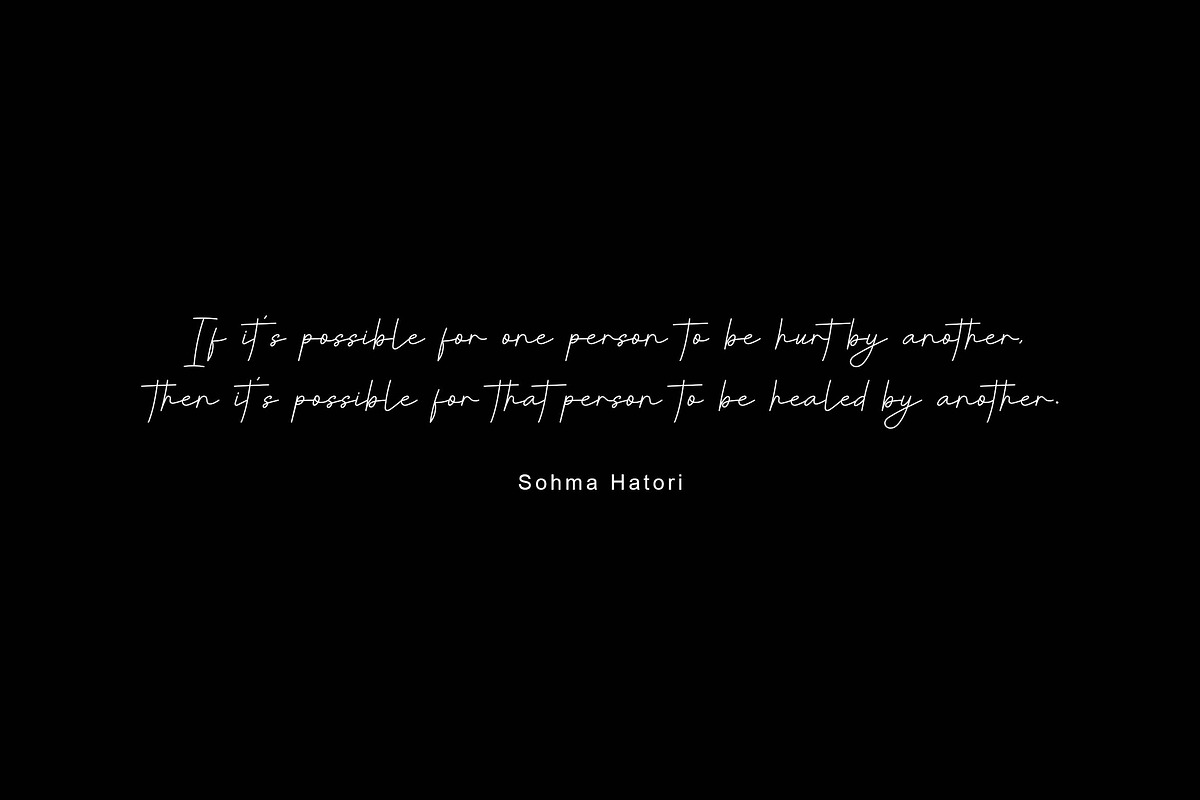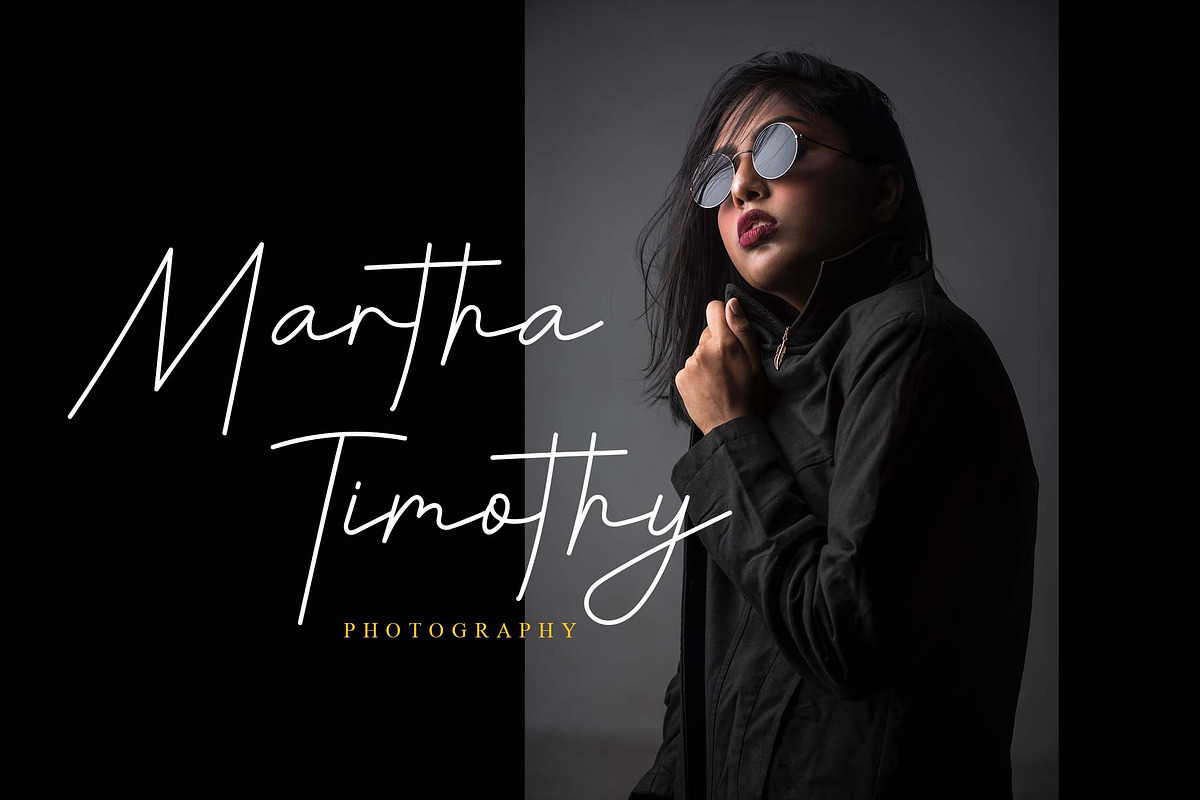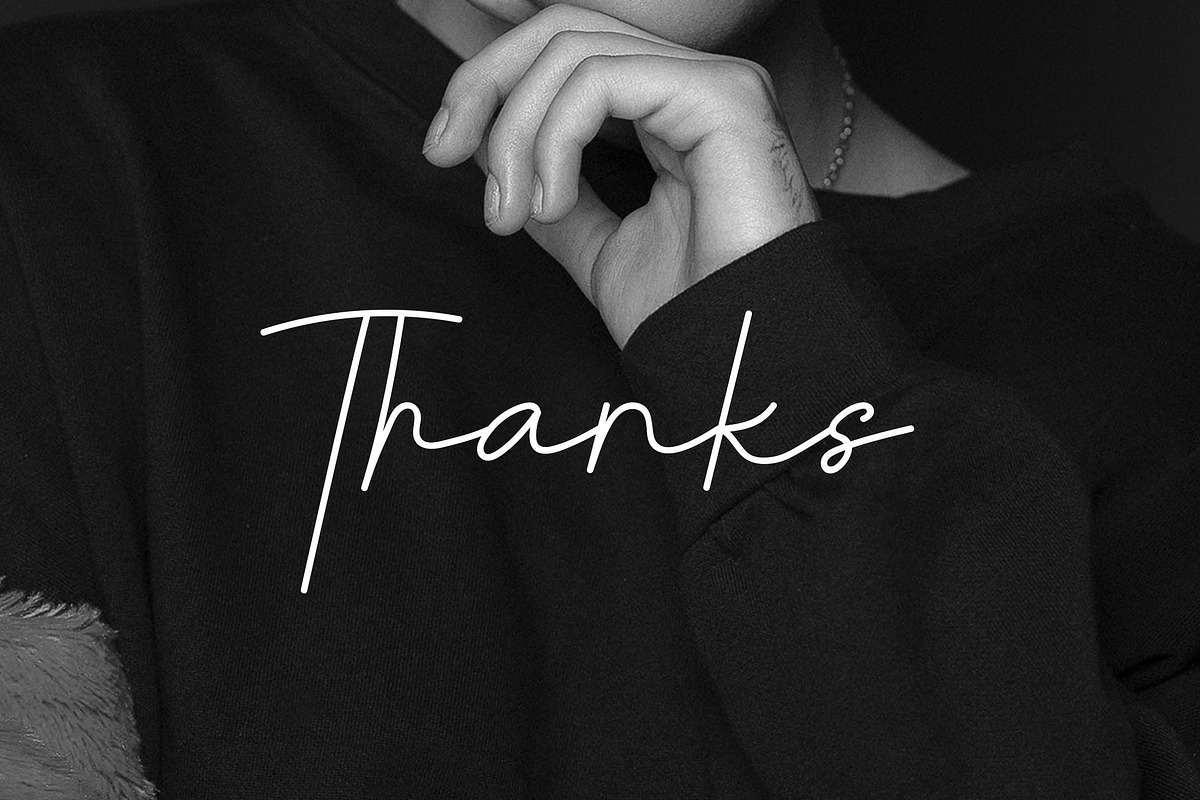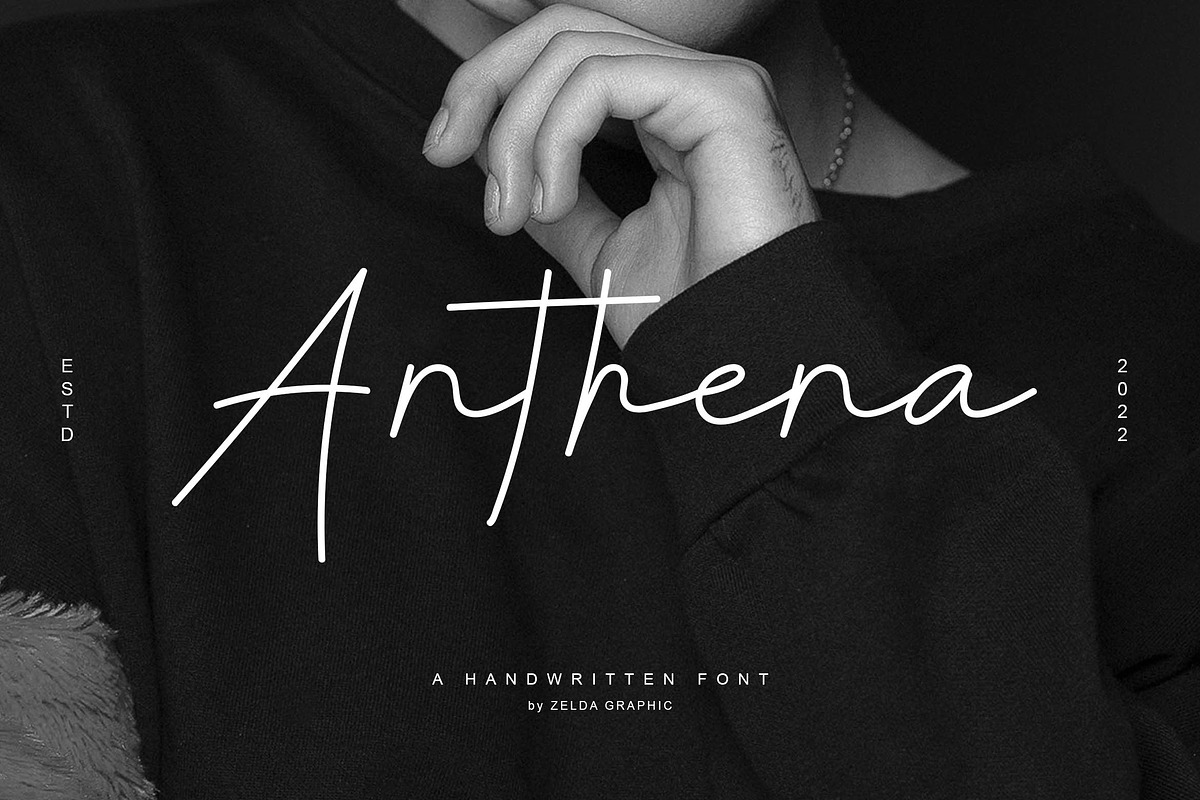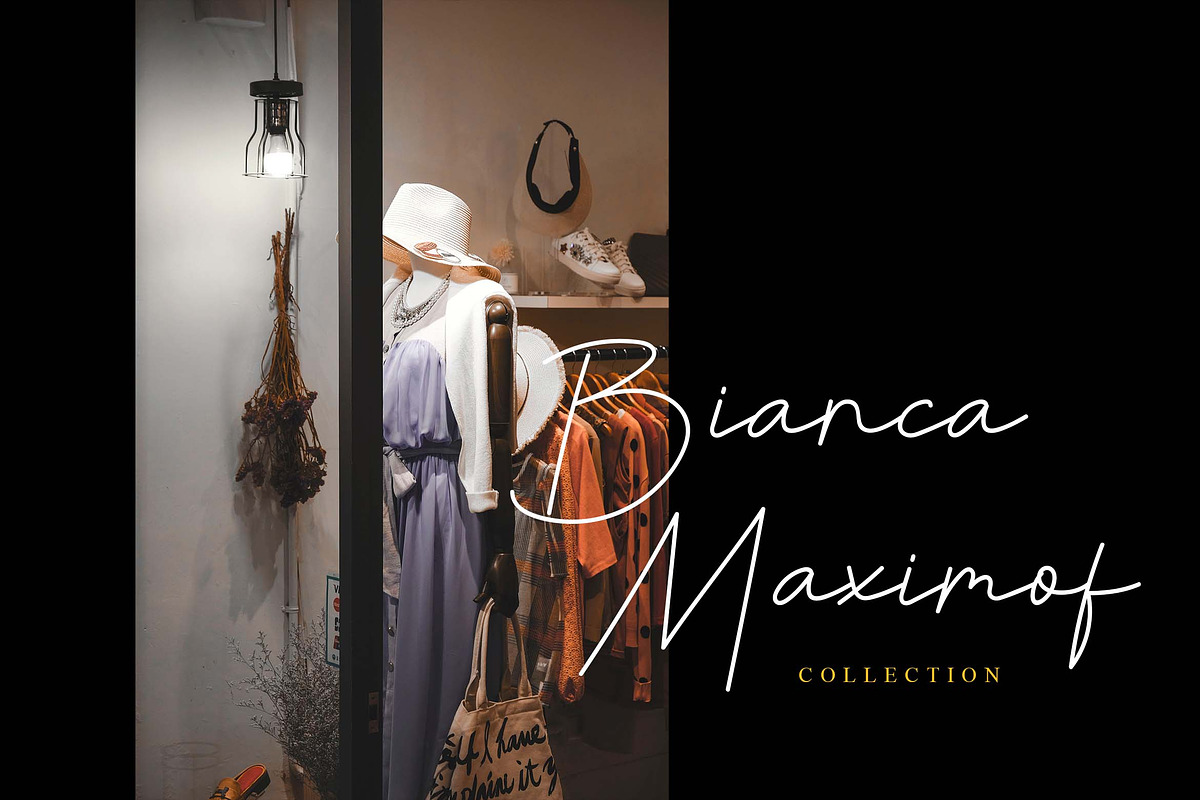
Anthena
Anthena is a cute and fun script font with a strikingly authentic feel font is our new item that is suitable for your Posters.
Great for Logo, Poster, Sticker, Jerseys, Invitation Cards, Brochure, etc.